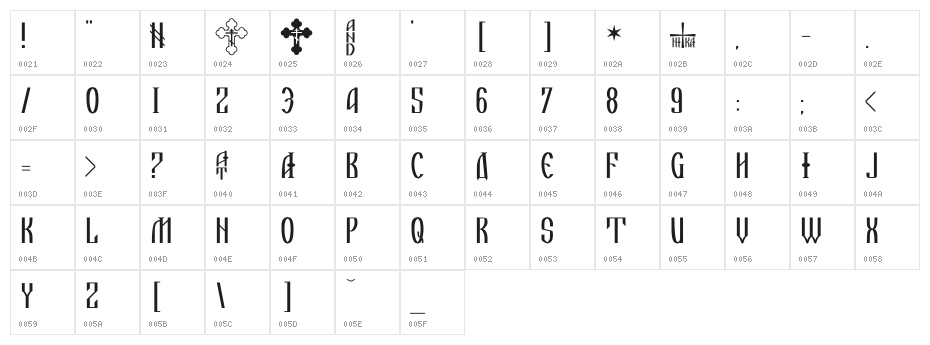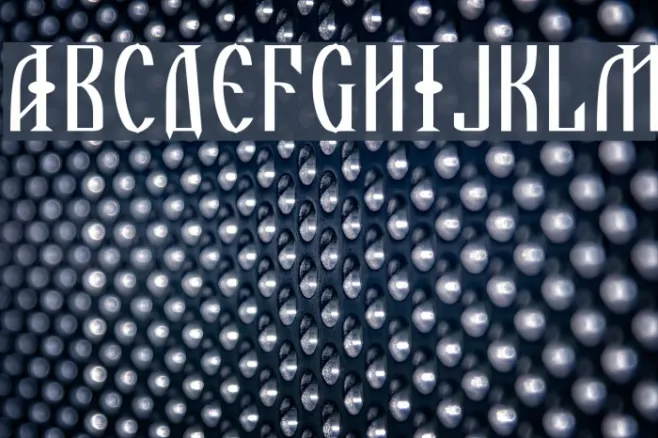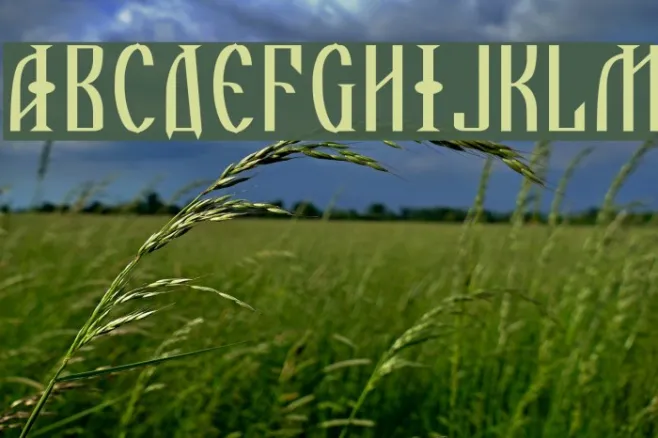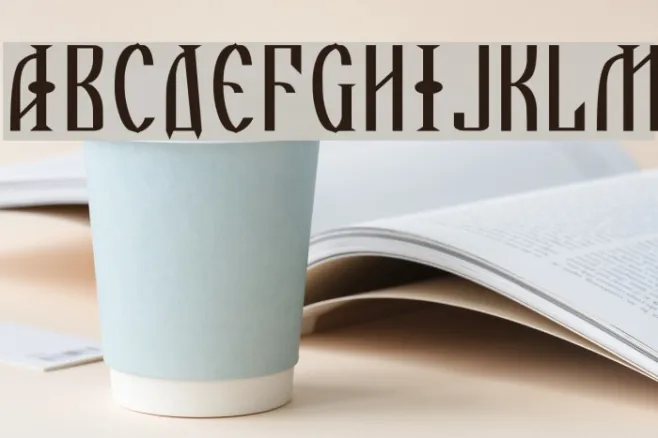
IkonWrite Font
IkonWrite Description
This font features a bold and striking design with a strong emphasis on vertical lines and sharp angles. The uppercase letters are characterized by their tall, narrow forms, often incorporating unique serifs that add a decorative flair. The lowercase letters maintain a similar style, ensuring consistency across the typeface. Numbers are designed with a similar boldness, making them highly legible. Special characters are included, each crafted with the same attention to detail, enhancing the font's versatility. The overall appearance is reminiscent of Gothic or medieval styles, making it suitable for projects that require a dramatic and impactful visual presence.
| Proposed Projects | Ideal for branding, posters, album covers, and any design requiring a dramatic, medieval aesthetic. |